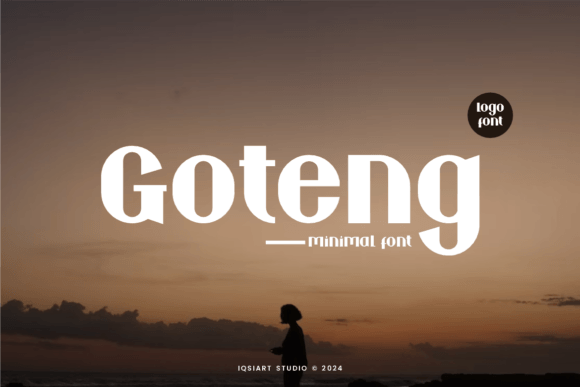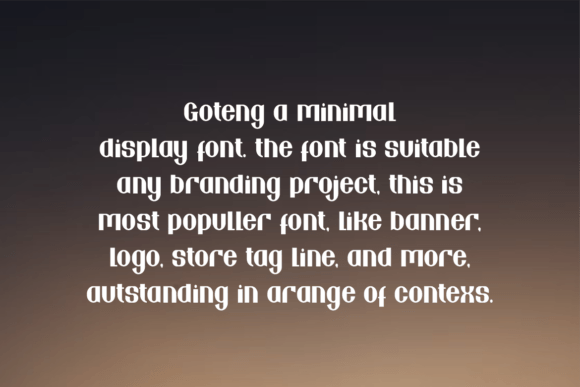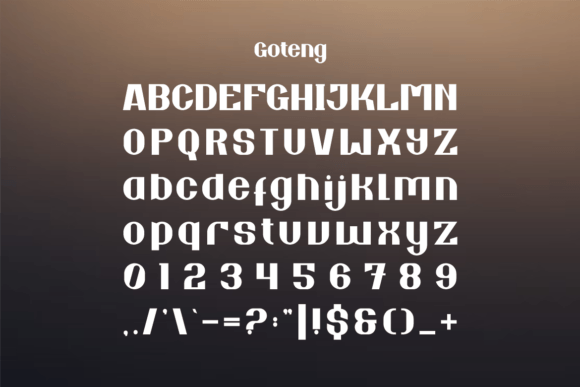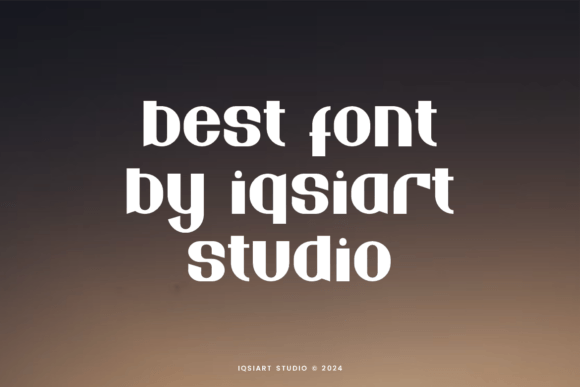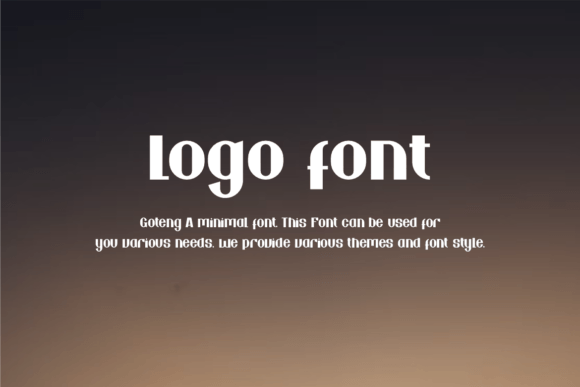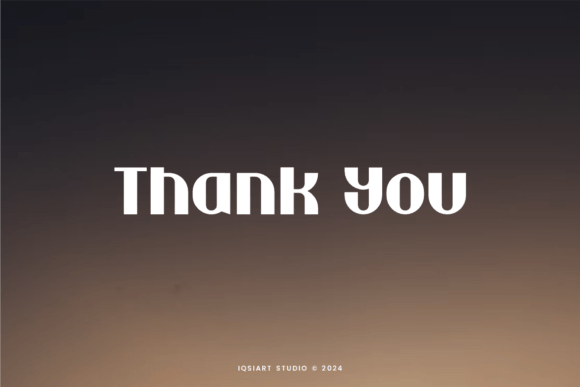
The Perfect Font for Making a Statement
Have you ever stared at a blank canvas, searching for the perfect combination of colors and typography to bring your design to life? That’s exactly what happened to us when we first laid eyes on the Goteng Font. Its bold, eye-catching letters screamed “make me the center of attention!” and we just couldn’t resist.
Goteng Font is a display font designed to make a statement. Its thick, strong letters are perfect for headlines, posters, and logos, and its modern and powerful style is sure to leave a lasting impression. Whether you’re a seasoned designer or just starting out, Goteng Font is a valuable addition to your toolkit.
With Goteng Font, the possibilities are endless. From eye-catching advertisements to bold brand identities, this font is sure to elevate your designs and leave a lasting impression on your audience.
Goteng Font Key Features
- Font Family: Goteng is a modern sans-serif font family designed for digital use.
- Character Count: The Goteng font family includes over 900 glyphs, covering a wide range of languages, including Latin, Cyrillic, and Greek scripts.
- Size and Resolution: Goteng is available in 6 different weights, ranging from Light to Extra Bold, and is designed for use at resolutions up to 300 DPI.
- Unique Characteristics: Goteng features a distinctive geometric shape and a highly legible design, making it ideal for digital applications such as web design, mobile apps, and digital signage.
Goteng Font Review
At first glance, Goteng Font seems like a promising sans-serif font with a modern feel. ✨ The font’s geometric shapes and clean lines give it a sense of simplicity and elegance, making it suitable for various design projects. ✨ The font’s x-height is well-balanced, which ensures readability, especially in body text. ✨ The font’s versatility allows it to be used for both digital and print media.
However, there are some limitations to consider. ⚠️ One of the main issues is the font’s lack of support for certain languages. This can be a significant problem for designers working on projects that require multilingual support. ⚠️ Additionally, the font’s italic styles can appear somewhat inconsistent, which may affect the overall legibility of the text. ⚠️
Overall, Goteng Font is a solid choice for designers looking for a modern sans-serif font. While it has its limitations, the font’s clean design and versatility make it a great option for various projects. With some careful consideration of its limitations, Goteng Font can be a valuable addition to any designer’s toolkit.
- Modern sans-serif design
- Geometric shapes and clean lines
- Well-balanced x-height
- Versatile for digital and print media
Tips for Getting the Most Out of Goteng Font
To get the most out of Goteng Font, try the following:
- Use Goteng Font in combination with other fonts for a unique look.
- Customize the font’s kerning and leading to improve readability.
Goteng Font is commonly used for:
- Marketing materials, such as brochures and flyers
- Web design and digital interfaces
Alternatives to Goteng Font
Abril Fatface is a modern, elegant script font perfect for adding a touch of sophistication to your designs. It’s ideal for use in invitations, wedding stationery, and other high-end branding materials. Abril Fatface has a similar feel to Goteng Font in its elegant, cursive style, but with a more refined and luxurious appearance.
Cormorant Garamond
Cormorant Garamond is a classic serif font with a modern twist. It’s a great choice for body text, as it’s highly legible and easy to read. Cormorant Garamond is more formal than Goteng Font and has a more traditional look, making it suitable for use in formal documents, academic papers, and business reports.
Playfair Display is an elegant, high-end script font perfect for use in titles, headings, and other display text. It’s ideal for use in luxury branding, advertising, and editorial design. Playfair Display has a similar luxurious feel to Goteng Font, but with a more refined and sophisticated appearance.
Are there any font size or scaling limitations for the Goteng Font?
The Goteng Font is designed to be scalable and suitable for use at various font sizes. However, it’s recommended to use it at font sizes between 12 and 48 points for optimal legibility. At very small or large font sizes, the font may not render as intended due to the limitations of the underlying font technology.